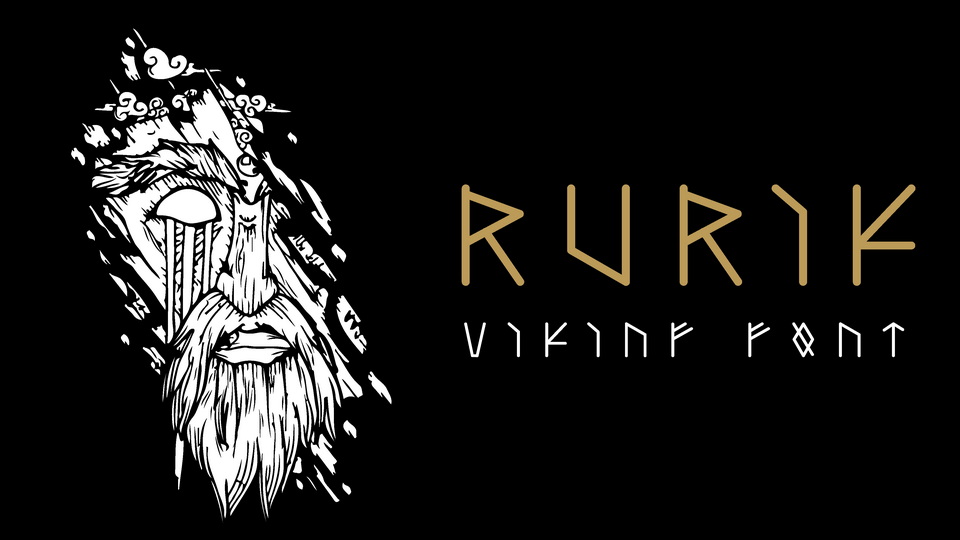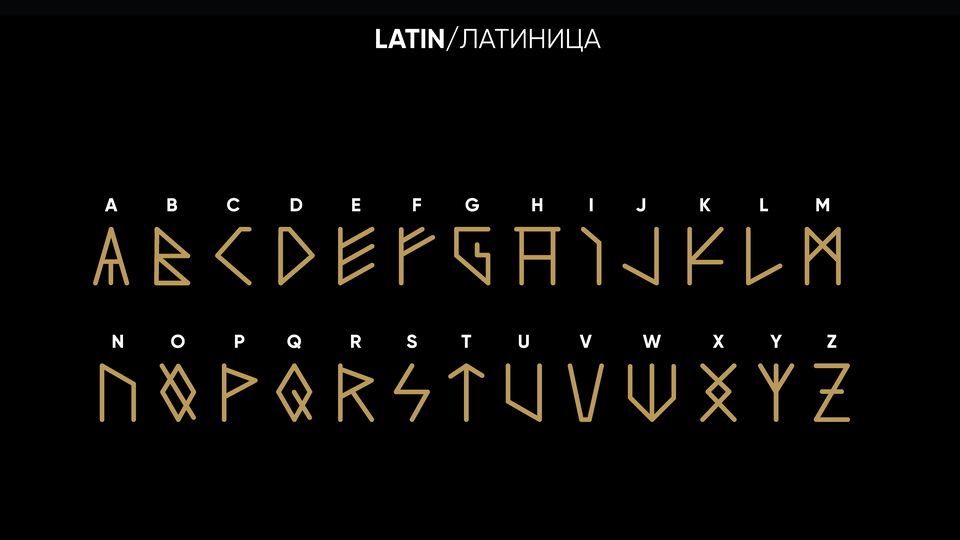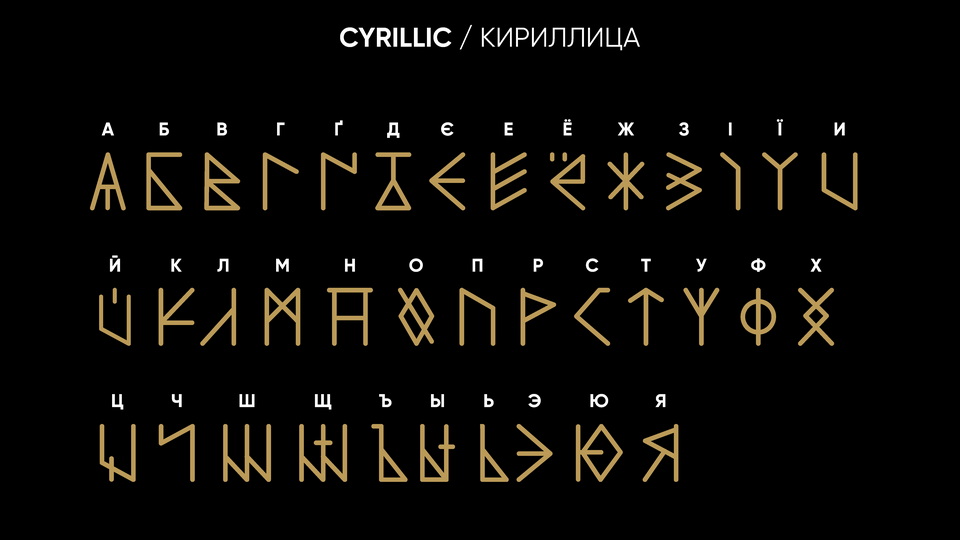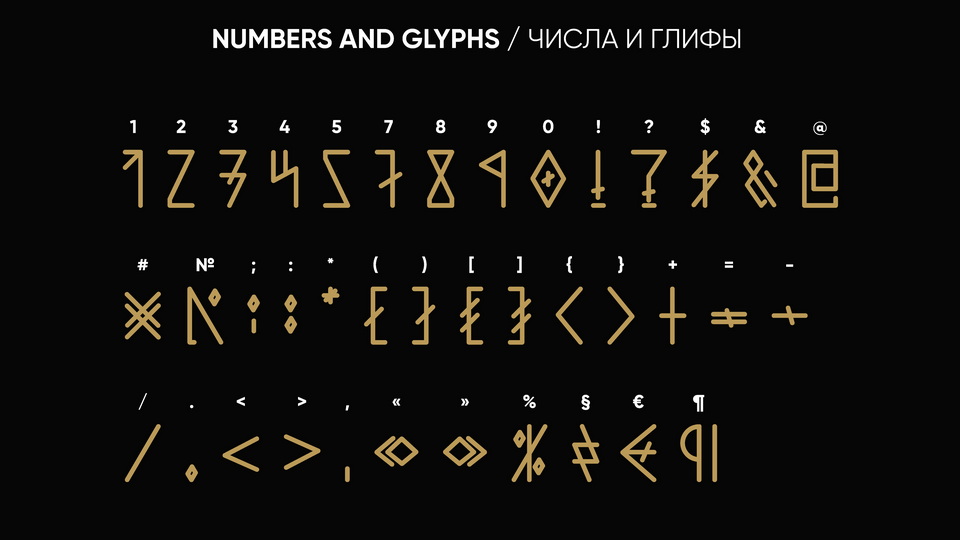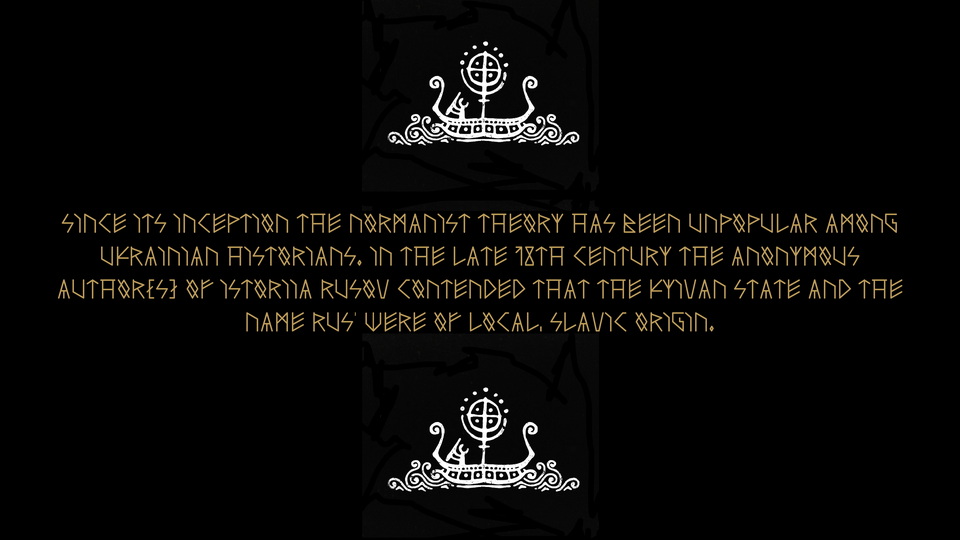
Ruruk is a unique font that combines the ancient runes of various tribes, adaptations and varieties. Font can be used as: emphasis on the site or in a separate section; in themed tattoos for personal use; for brandbook or individual branded media.
This font is the beginning of the direction Historical-analytical graphic design (HAG design). That is, it will recombining creative ideas with the history of the whole Earth, searching interesting facts, information gathering, experience of many generations and design itself.